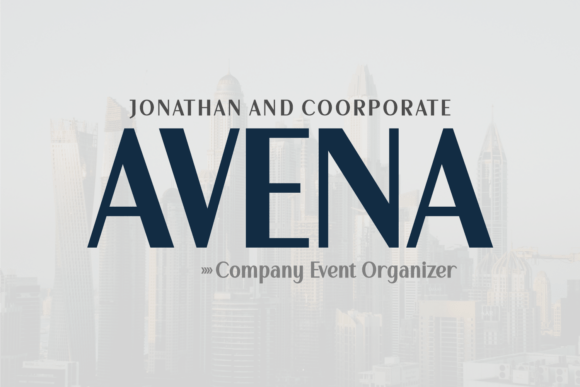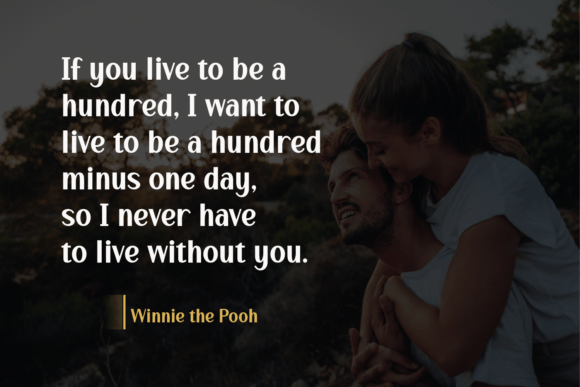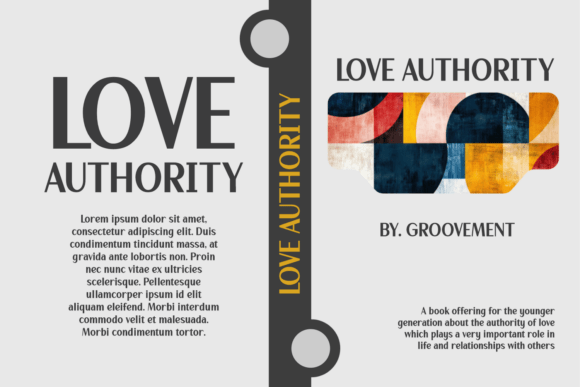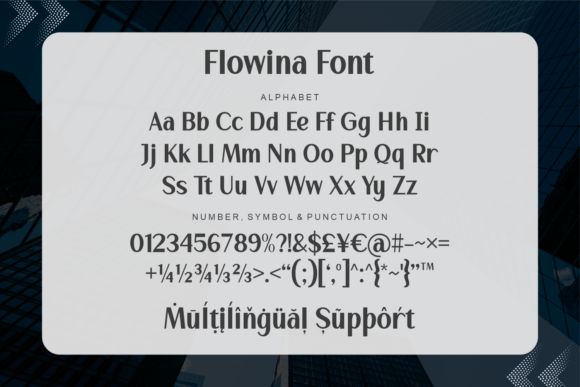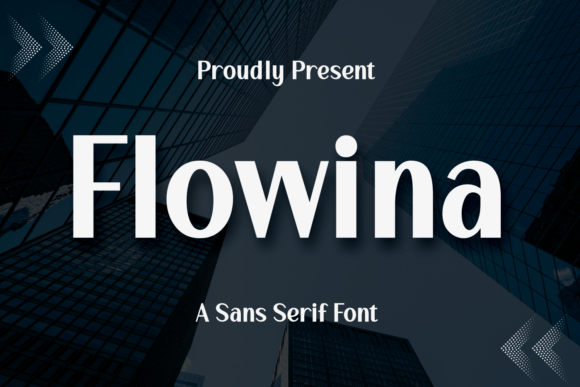
I still remember the frustration of working on a project, hours spent perfecting every detail, only to be held back by one thing: the font. It was a client project, and they wanted something modern, sleek, and professional. I scoured the internet, tried countless fonts, but nothing seemed quite right. That was until I stumbled upon Flowina Font. 🌟
Meet Flowina Font: The Modern Sans Serif Solution
Flowina is a modern sans serif font that has been making waves in the design community. Its clean lines, smooth curves, and contemporary feel make it an excellent choice for corporate branding, digital projects, editorial layouts, and modern advertising. Flowina combines elegance with readability, ensuring your message stands out with clarity and style.
An Honest Review of Flowina Font
What I Love About Flowina Font
- ✨ Clean and modern design: Flowina’s sleek lines and smooth curves make it perfect for projects that require a professional look.
- ✅ Highly readable: The font’s clear and concise design ensures that your message is easily understood, even at small sizes.
- 💡 Versatile: Flowina can be used for a wide range of projects, from corporate branding to digital projects and editorial layouts.
- 🎨 OpenType features: Flowina supports OpenType features, including glyphs and stylistic alternates, giving you more creative control.
While Flowina Font is an excellent choice, there are a few things to keep in mind: 🤔
- ⚠️ Limited availability of weights: Flowina currently only offers a few weights, which may limit its use for certain projects.
- ⚠️ Some characters may not be suitable for body text: While Flowina is highly readable, some characters may not be suitable for body text, particularly at small sizes.
The Designer Inspiration Behind Flowina Font
Flowina Font was designed with the modern designer in mind. Its creator, a renowned type designer, aimed to create a font that would be both elegant and highly readable. Inspired by the latest design trends and technologies, Flowina Font is the perfect solution for designers looking for a modern sans serif font.
Q: What is Flowina Font?
A: Flowina Font is a modern sans serif font designed for corporate branding, digital projects, editorial layouts, and modern advertising.
Q: What are the key features of Flowina Font?
A: Flowina Font features clean lines, smooth curves, and a contemporary feel, making it highly readable and versatile.
Q: Is Flowina Font available in different weights?
A: Currently, Flowina Font is available in a few weights, but more weights may be added in the future.